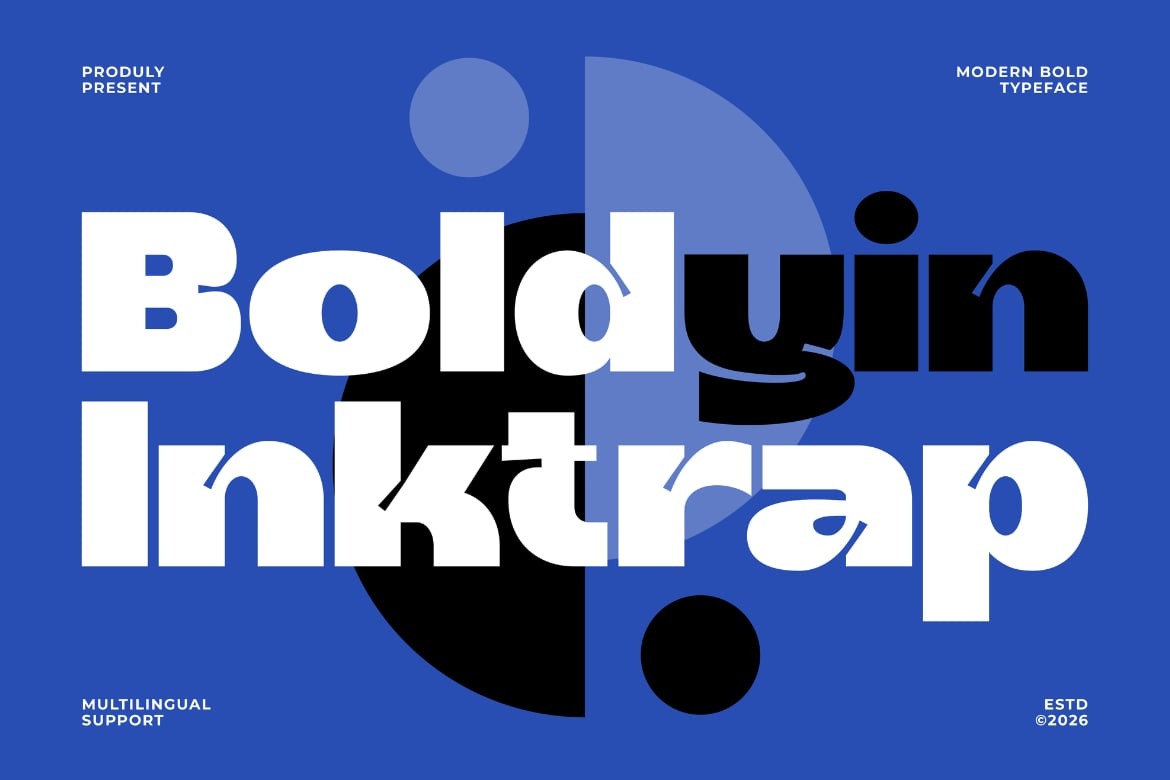
Boldyin Inktrap – Modern Geometric Font
Boldyin Inktrap – Modern Geometric Font is a distinctive and expressive font crafted to bring personality, structure, and creative energy into your projects. Bolduin Inktrap is a bold modern display typeface that combines clean geometric construction with distinctive inktrap details. Its oversized proportions, strong letterforms, and contemporary trap cuts create a powerful visual identity while maintaining excellent readability.
Designed for modern branding and high-impact typography, Bolduin Inktrap delivers a perfect balance between functionality and personality. The carefully crafted inktrap features add subtle technical character, making the font feel both industrial and refined.
Whether you’re creating logos, technology brands, packaging, editorial headlines, advertising campaigns, or digital interfaces, Bolduin Inktrap provides a bold, confident voice that stands out across every medium.